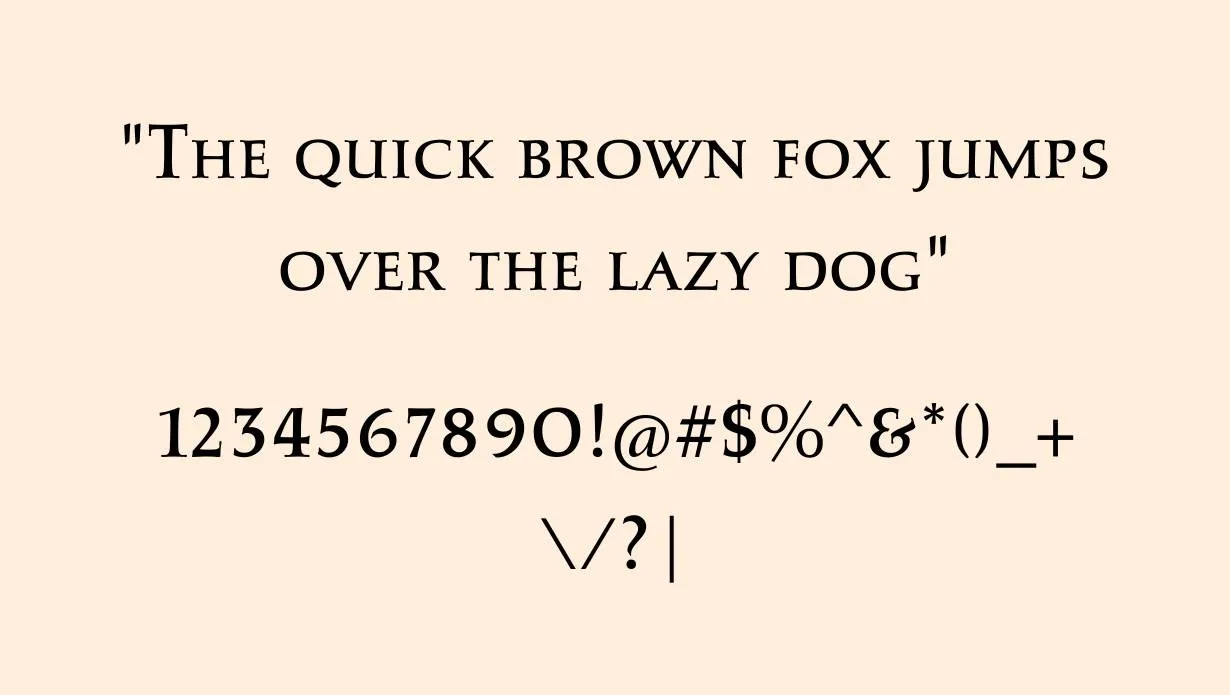
The Sistina Font carries an air of timeless elegance. Its graceful characters add a touch of sophistication to any project. From invitations to creative endeavors, this font brings a refined aesthetic.
The Sistina Font effortlessly integrates into various design applications, providing a sense of classic charm and sophistication.
| Name | Sistina Font |
| Designer | Hermann Zapf |